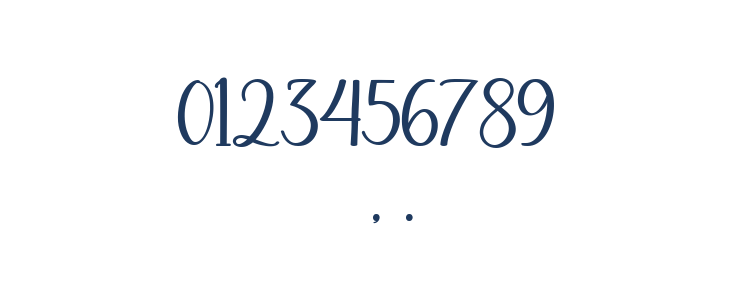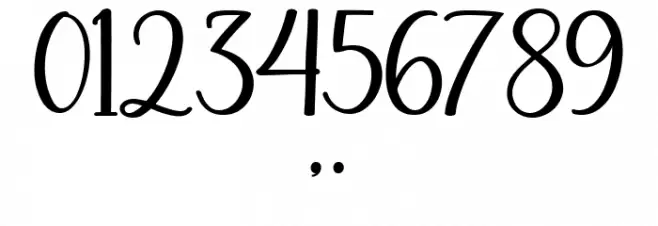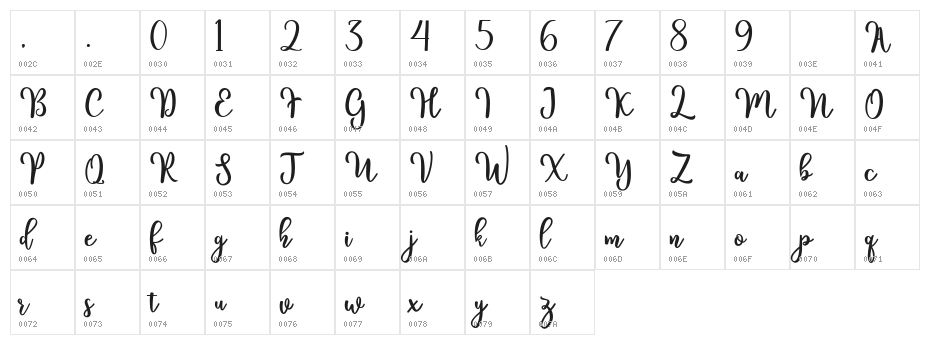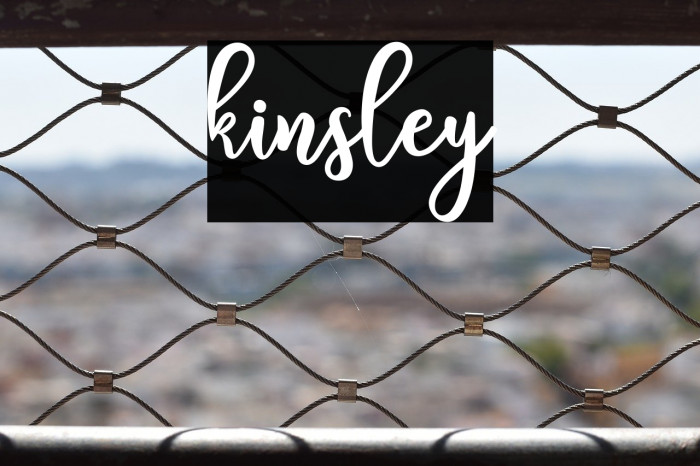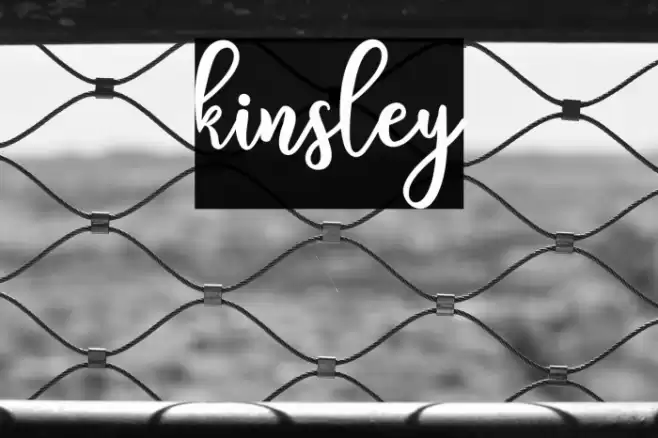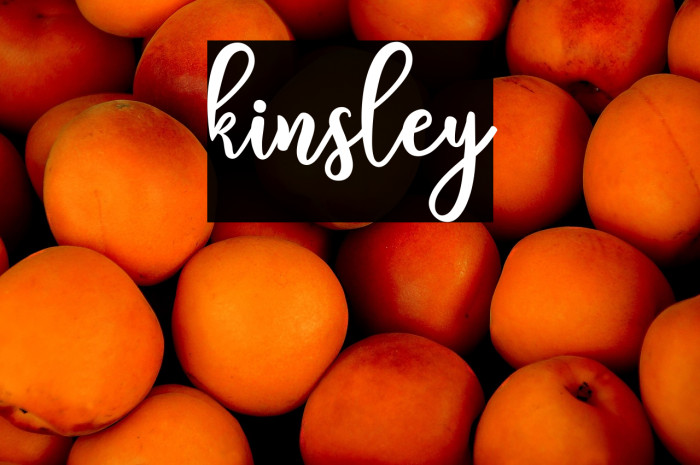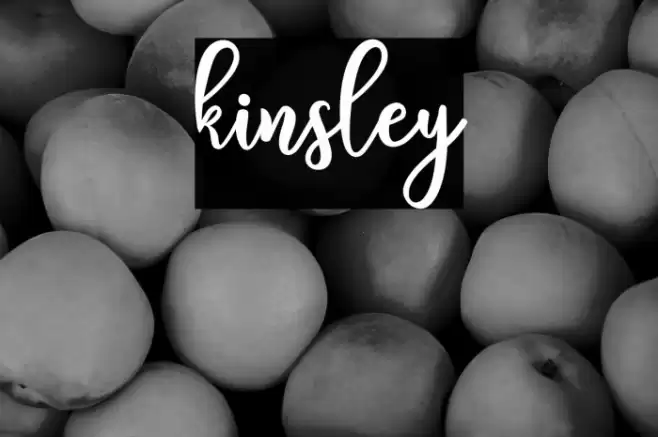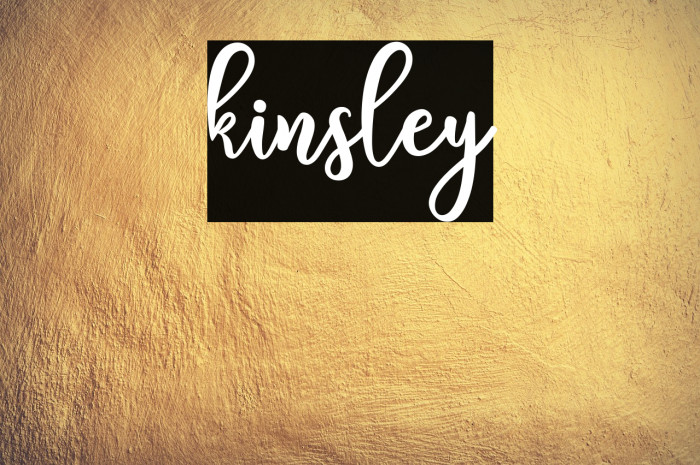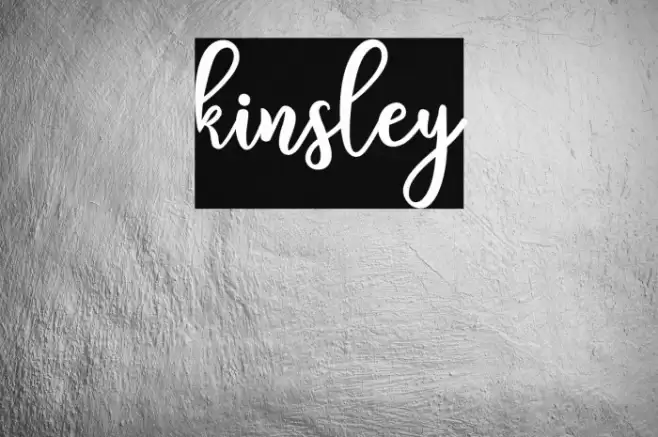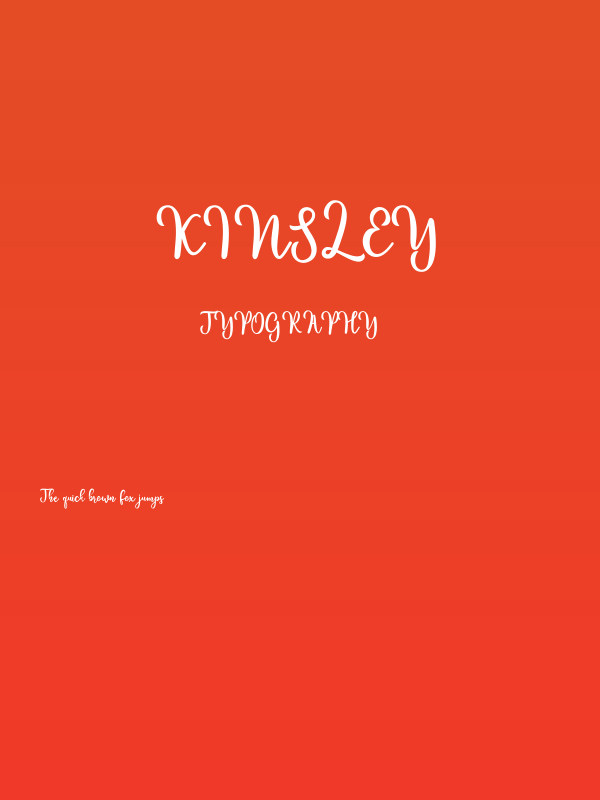
kinsley Font
kinsley Description
This font features a playful and elegant script style with a handwritten appearance. The uppercase letters are characterized by smooth, flowing curves and a slight slant, giving them a dynamic and lively feel. The lowercase letters maintain a consistent style, with some letters featuring loops and swashes that enhance the font's decorative nature. The numerals are clear and easy to read, with a slight variation in stroke thickness that adds to the overall charm. The special characters complement the alphabet with similar stylistic elements, making the font versatile for creative projects.
Use CaseLogos, Headlines, Invitations
Proposed ProjectsIdeal for wedding invitations, greeting cards, branding, and social media graphics.